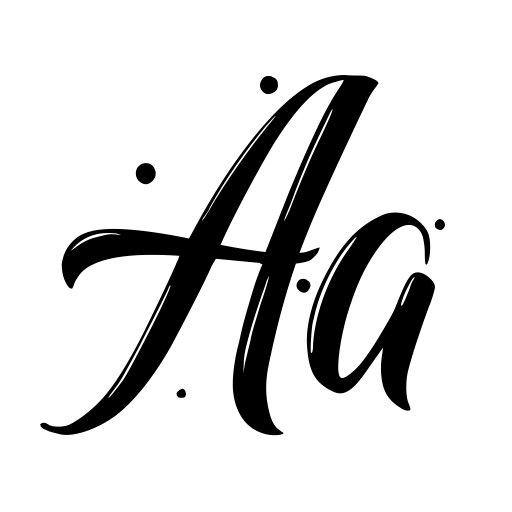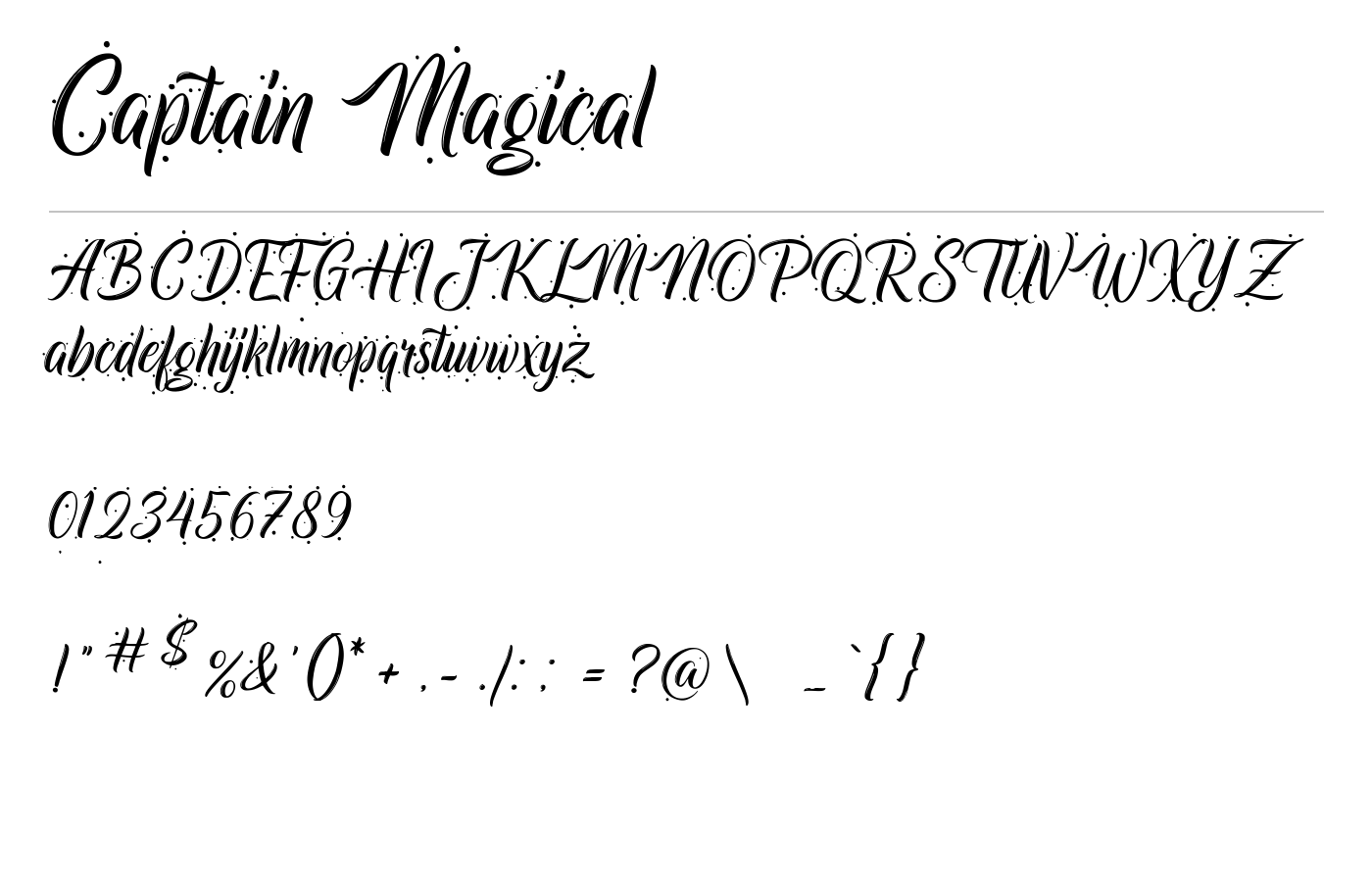
Captain Magical is a playful and elegant script font with a handwritten feel, featuring slender, fluid strokes and whimsical dotted accents that add a magical charm. Its tall, flowing letterforms with high contrast and delicate curves make it ideal for creative and stylish branding, invitations, or any design seeking a touch of enchantment. This font works beautifully in headlines and decorative text where a light, charming personality is desired.
Captain Magical Font
About Captain Magical Font